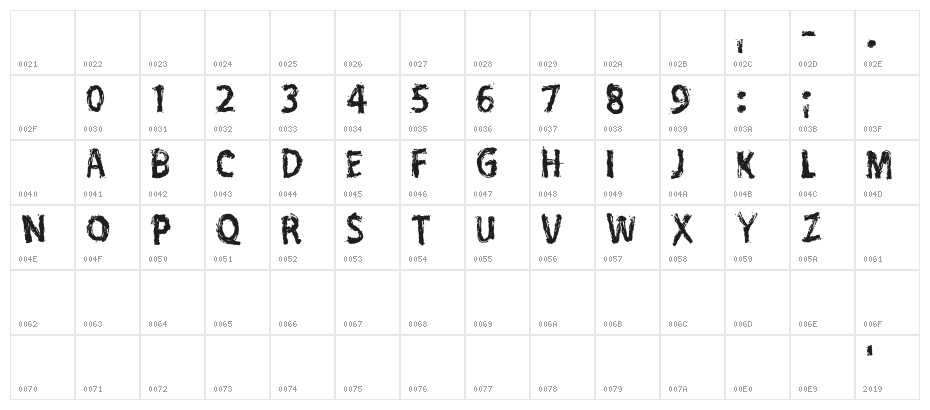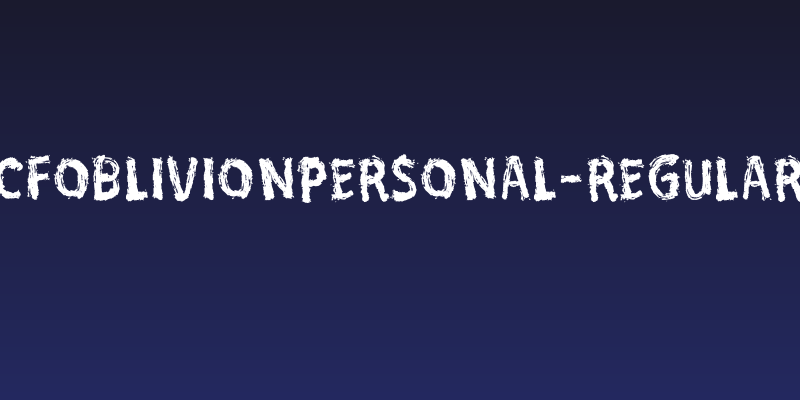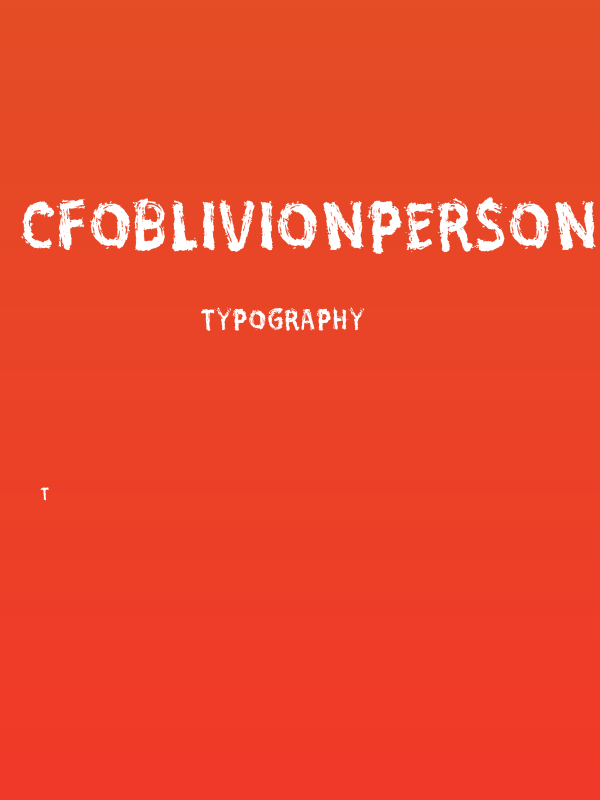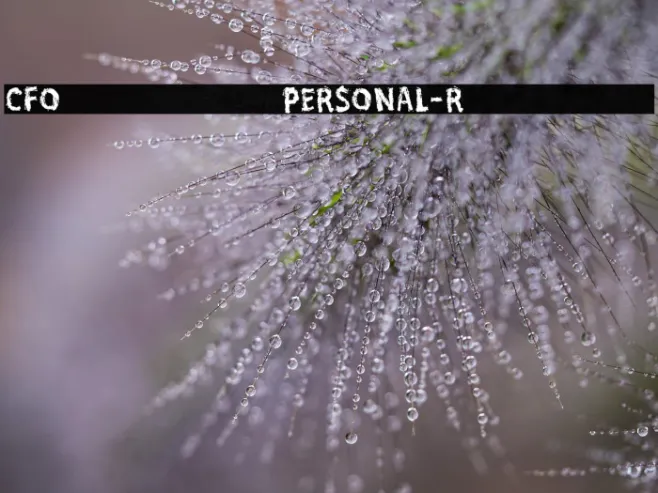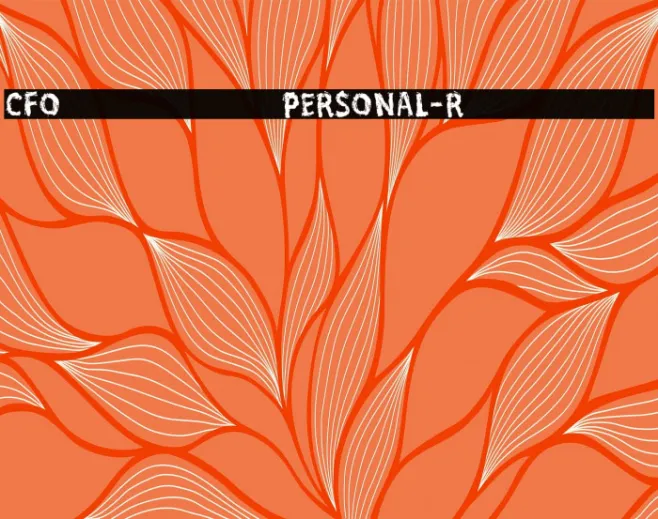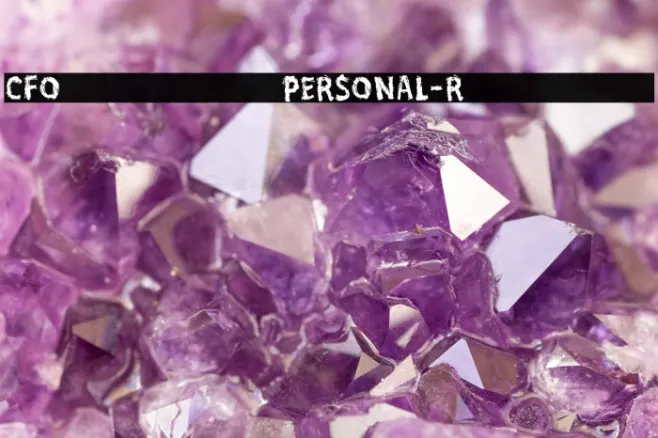
CFOblivionPERSONAL-Regular Font
CFOblivionPERSONAL-Regular Description
This font features a bold, distressed style with a rough, textured appearance that gives it a grunge or urban feel. The characters are irregular and appear as if they have been painted with a brush, adding a dynamic and energetic quality. The uppercase letters are prominent, with a slightly uneven baseline that enhances the font's edgy aesthetic. The numbers follow the same rugged style, maintaining consistency across the character set. This font is ideal for projects that require a bold statement or a creative, artistic touch.
| Overall Style | Grunge, Urban, Artistic |
| Proposed Projects | Ideal for album covers, posters, streetwear branding, and creative digital art. |